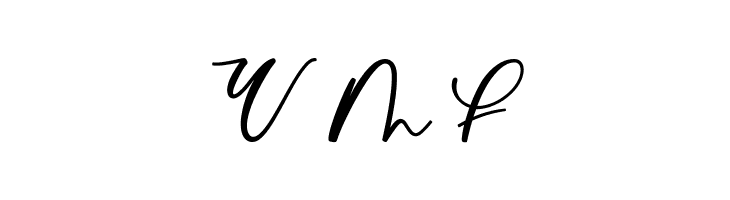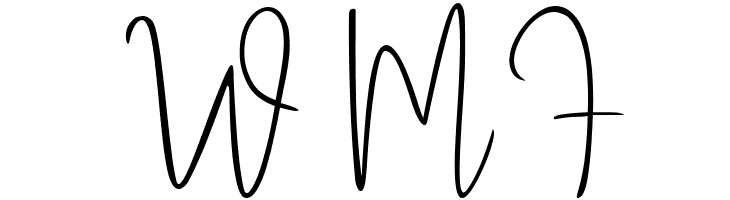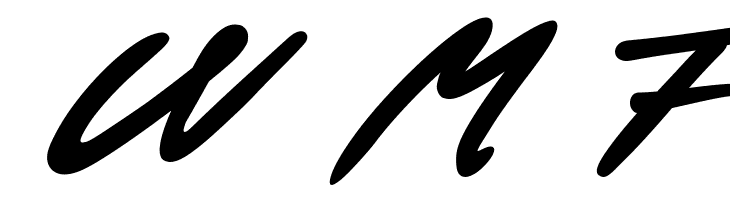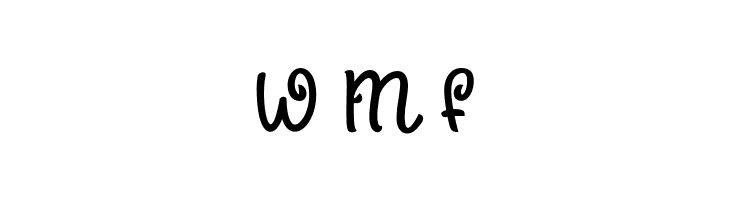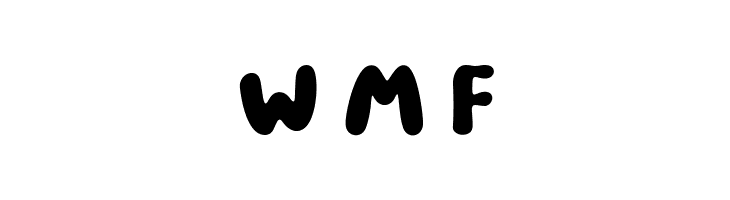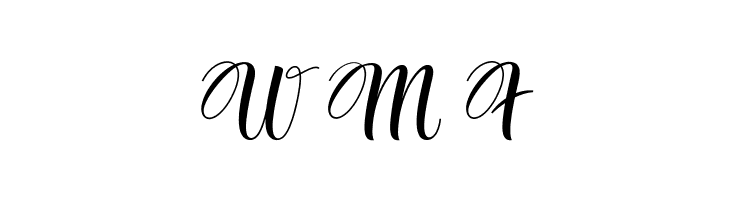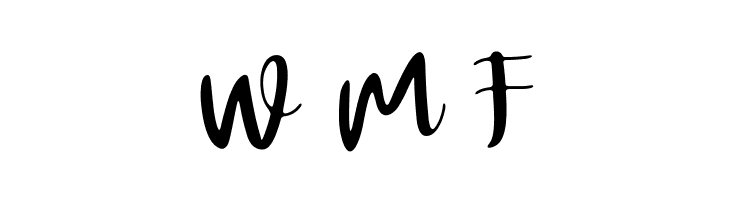
A flowing, cursive font with elegant, interconnected characters.
A playful, handwritten font with fluid strokes and a whimsical style.
A bold, cursive font with a flowing, handwritten style.
A playful, curly font with bold, smooth strokes and a whimsical style.
A playful, hand-drawn font with rounded, bold characters.
A playful, bold, and rounded font with a hand-drawn feel.
A playful, bold font with rounded, thick characters and a whimsical style.
An elegant script font with flowing, intricate loops and swashes.
A modern, cursive font with elegant, flowing strokes and a slight slant.
A bold, expressive handwritten font with fluid, interconnected strokes.